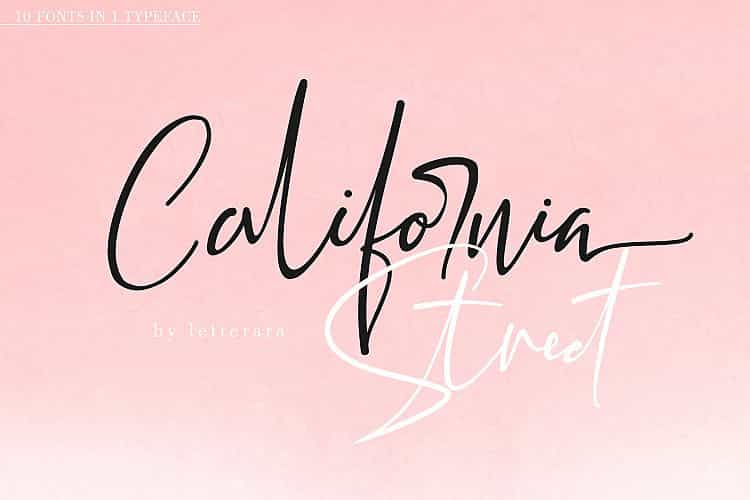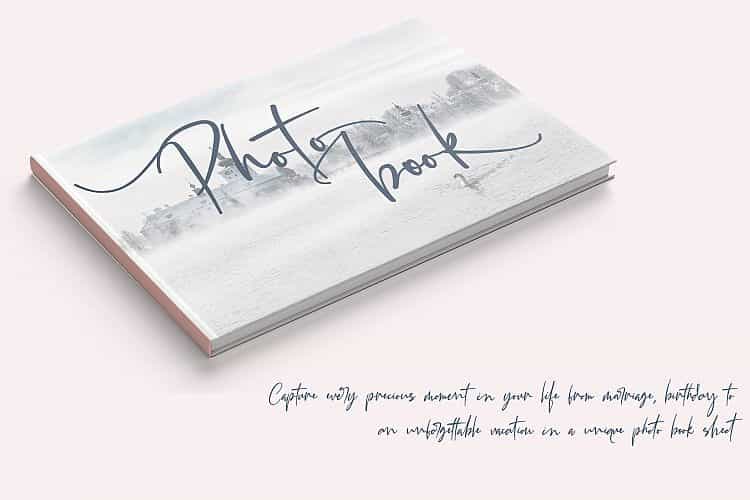
It is a sweet script girly font style with natural and real handwritten touch feeling of the Californian street. Contemporary and chic, yet delicate and, above all, unambiguously designed for women. The template is design and shared by letterara. It’s the perfect handwritten font: This typeface is sweet, innocent, light and charming; it will be a perfect addition to any design project.